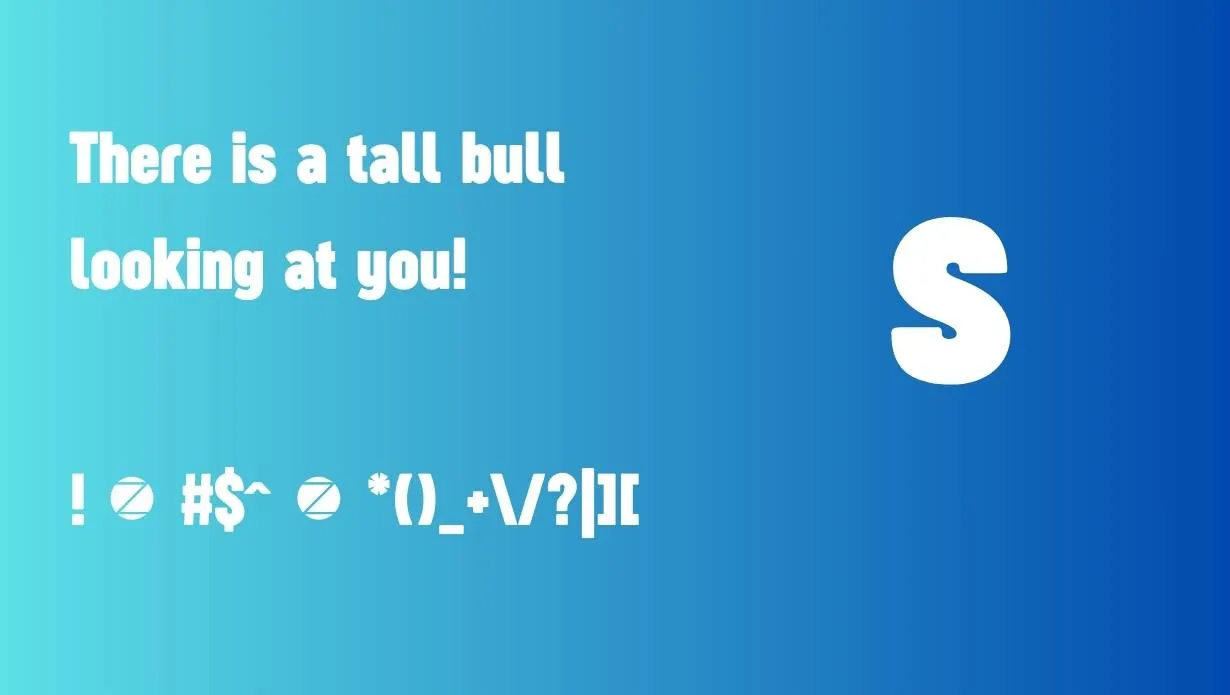
Sugo Pro is a modern and versatile sans-serif font known for its clean and geometric design. With a contemporary appearance, it is suitable for various design applications. Sugo Pro is commonly used in branding, digital interfaces, and print materials where a sleek and modern typeface is desired.
Its purpose is to provide a clear and readable font that aligns with current design trends, ensuring that text communicates information with clarity and style.
| Designer | Francesco Canovaro, Andrea Tartarelli |